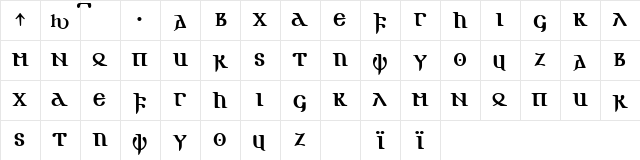
Gotik AOE Regular
Design Context for Gotik AOE Typeface
Gotik AOE is a composed and adaptable typeface that performs quietly and consistently across a wide range of design contexts.